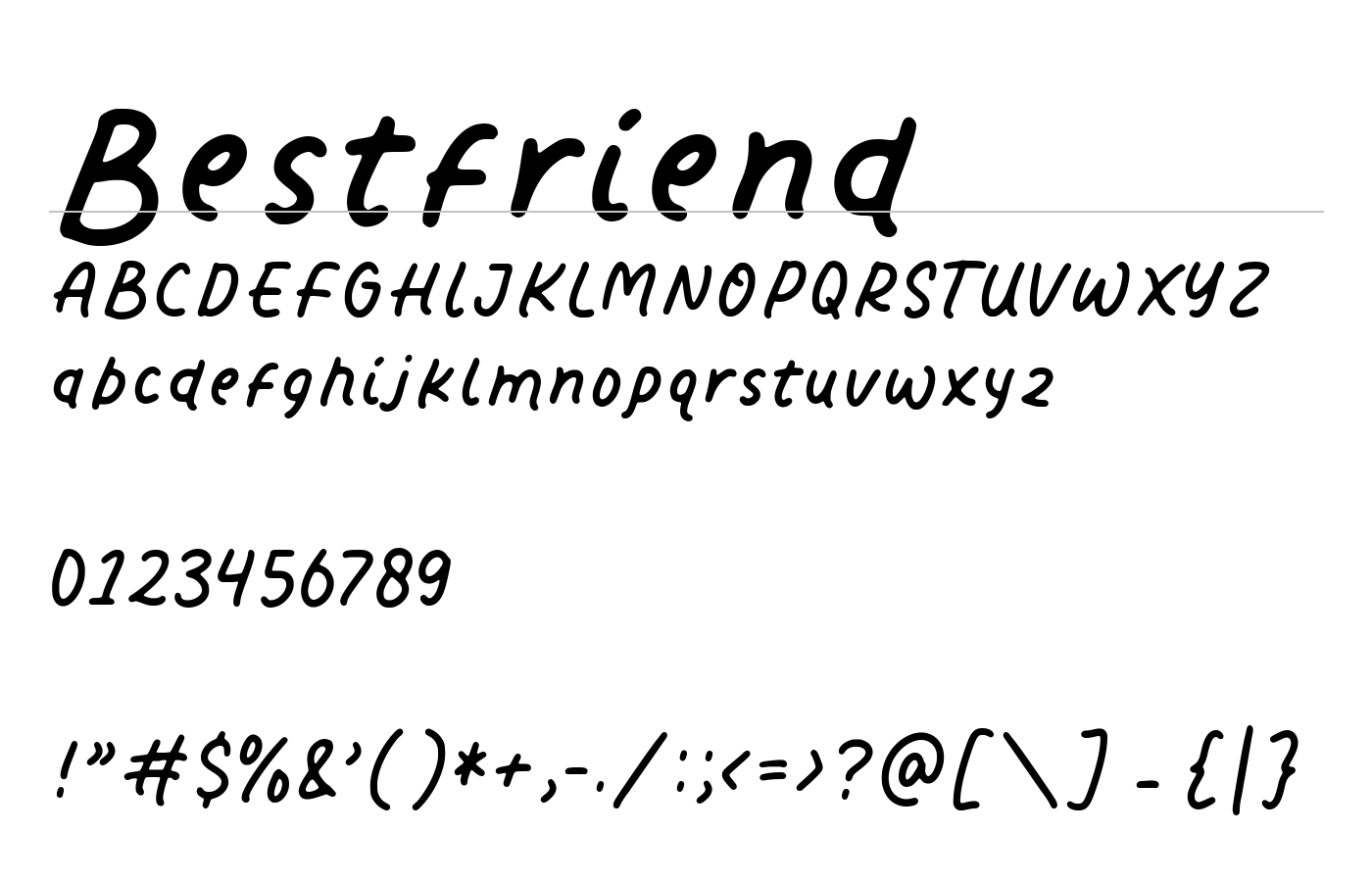
Bestfriend Font is a playful and casual handwritten sans serif with a smooth, slightly rounded stroke that feels warm and friendly. Its medium weight and consistent width give it good readability while maintaining a quirky, personal touch, perfect for invitations, greeting cards, or branding that aims to feel approachable and fun. This font works best for projects that want to convey sincerity and charm without losing clarity.
Bestfriend Font
About Bestfriend Font
| Font family | Bestfriend Font |
| Designer | Letterative Studio |